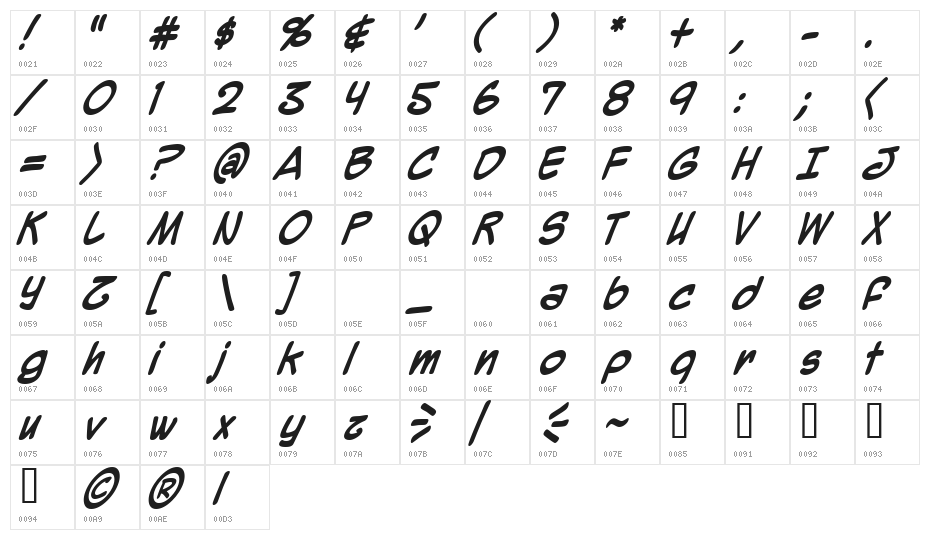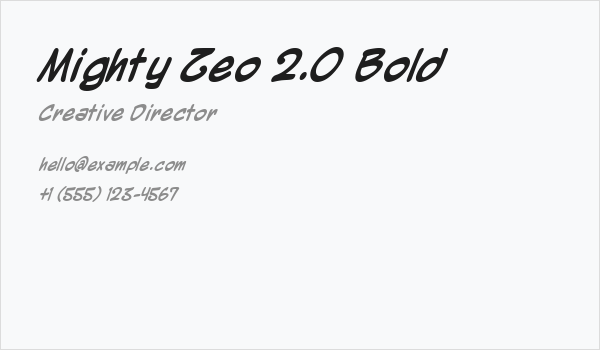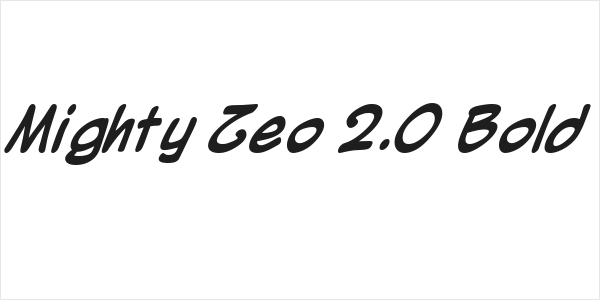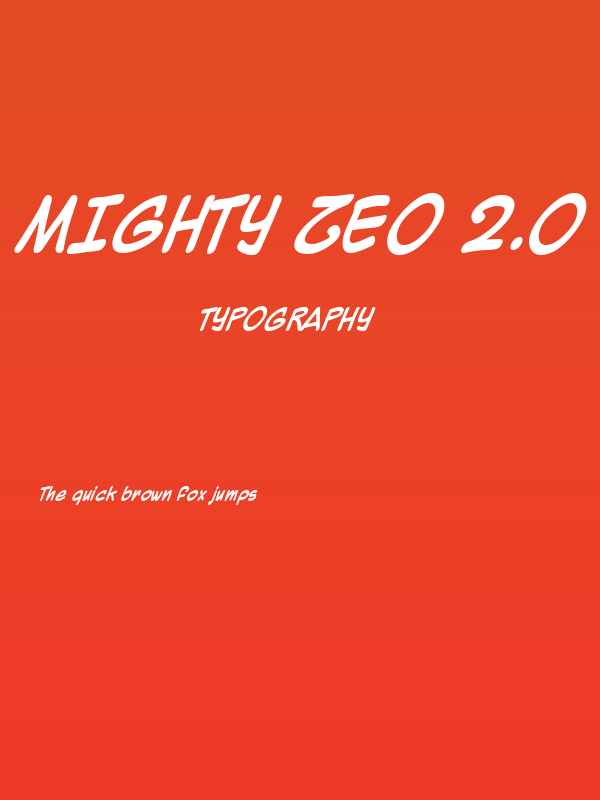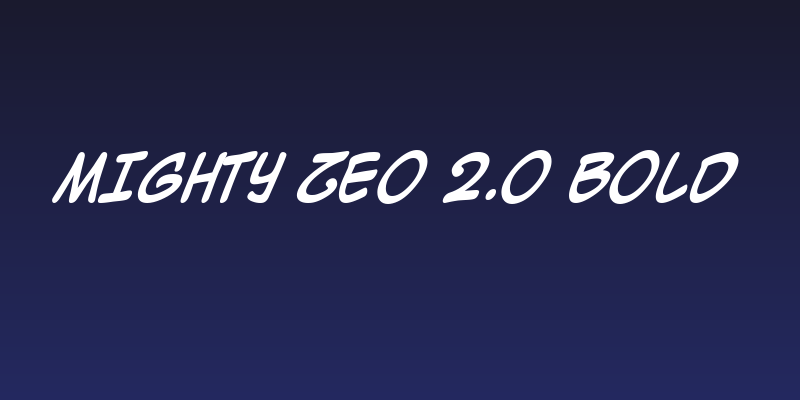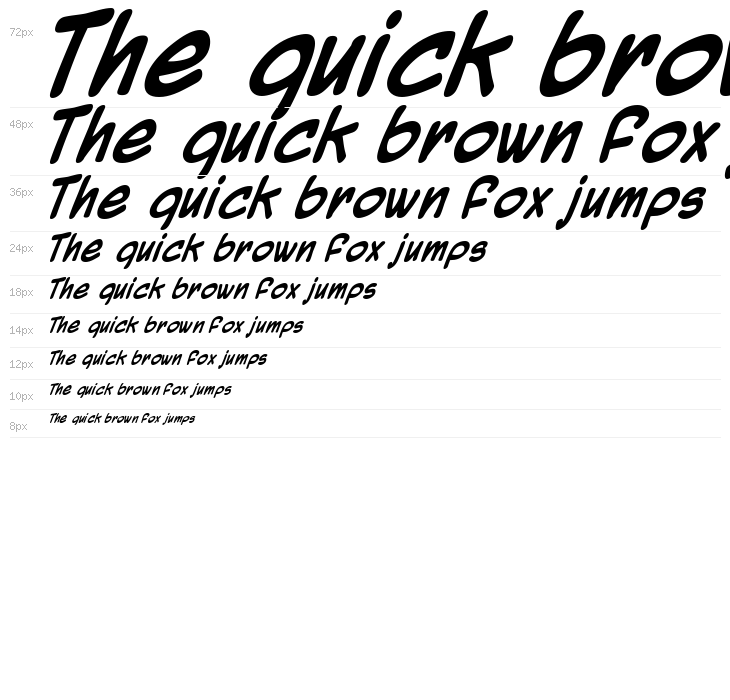
Mighty Zeo 2.0 Bold Font
Mighty Zeo 2.0 Bold Description
This dynamic and bold font features a script style with a strong, energetic presence. The characters are slightly slanted, giving a sense of motion and fluidity. Each letter is crafted with smooth curves and a consistent stroke width, creating a cohesive and harmonious look. The uppercase letters are prominent and commanding, while the lowercase letters maintain a playful and approachable feel. The numbers and special characters are designed to match the overall style, ensuring versatility across various applications.
Proposed ProjectsIdeal for branding, advertising, posters, and any project requiring a bold, energetic script.